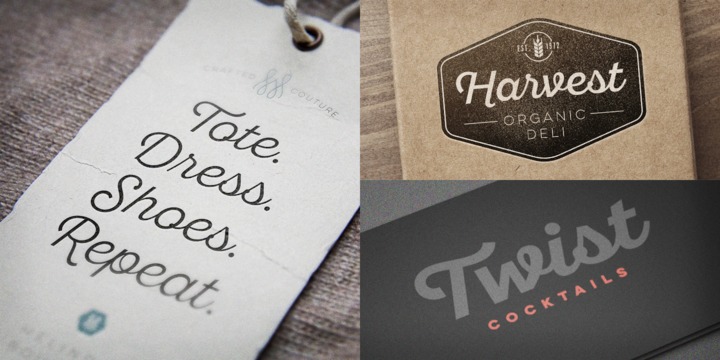
Sant’Elia font, consisting of 44 fonts, is certainly one of the most versatile font families.
Sant’Elia Script, designed by Ryan Martinson, comes in 6 different weights, three texture options and alternate forms. It offers extensive language support and advanced typographic features, such as oldstyle numerals and currency symbols, swash, ligatures, stylistic alternates, etc.
Letters look modern and crisp, even playful, which make it perfect for OpenType savvy applications or restaurant menus.
Sant’Elia is highly detailed, so you may expect it to process little slower (on some systems). However, its uniqueness and versatility are well worth the time.